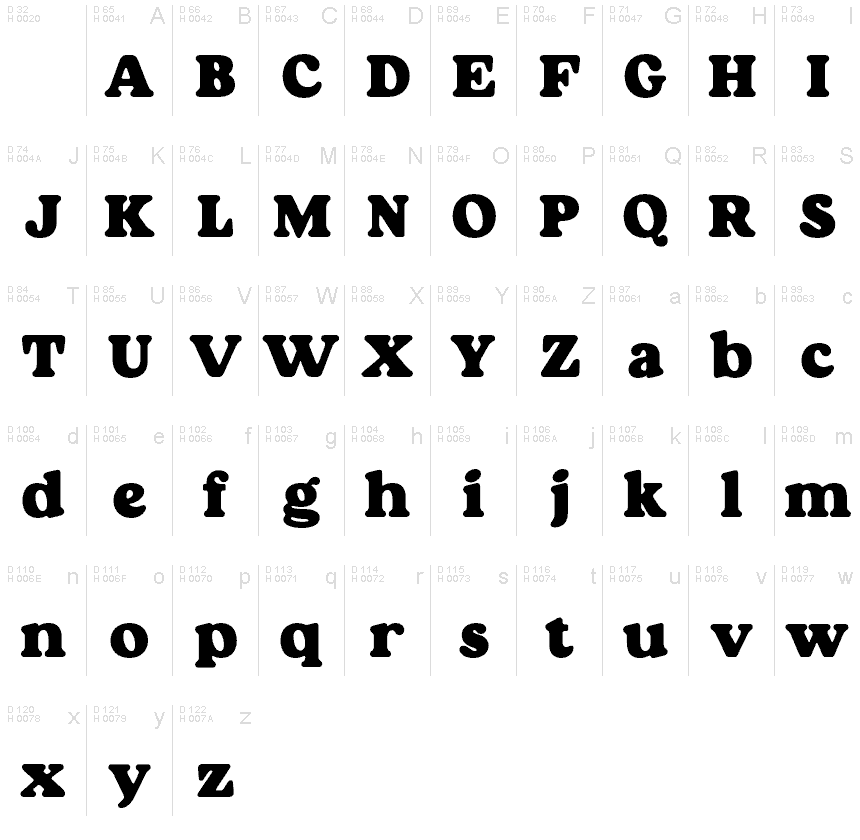
CS Chery Regular Demo
CS Chery font is a bold serif free font designed by Craft Supply Co. with rounded, uniform, and approachable characters. A vintage style that mimics a late 40s and early 50s look is apparent in the font’s design. This makes this creation ideal for many different decorative projects including both printouts and digital displays.
Some suggested uses by the author include billboards, magazines, newspapers, packaging boxes or bags designs, social media visuals, posters, cards covers or texts, books covers or texts as well as branded clothes either through embroidery or printed goods.